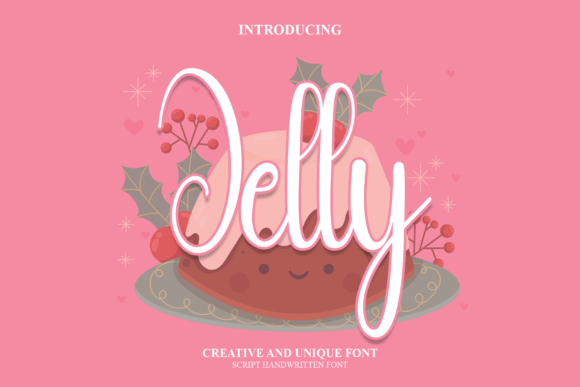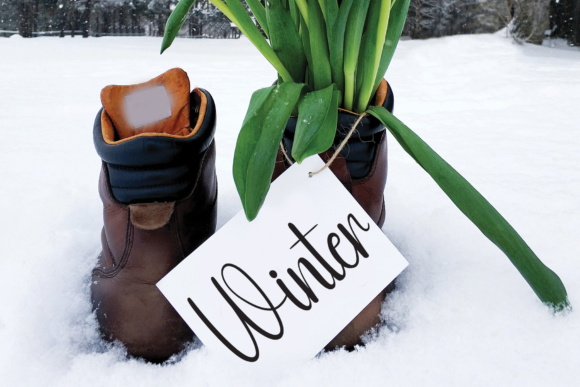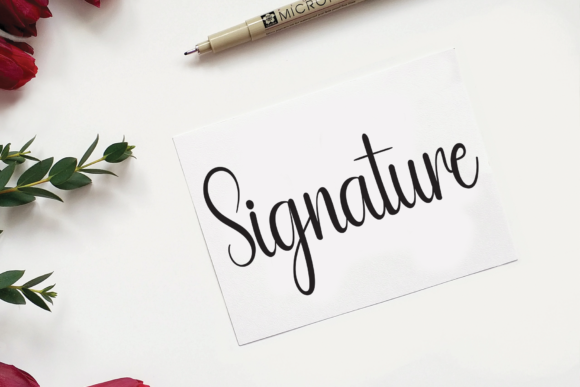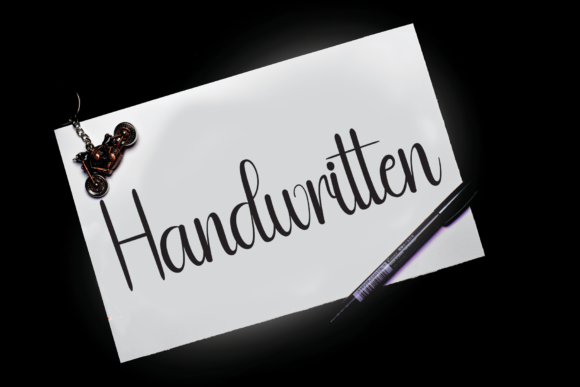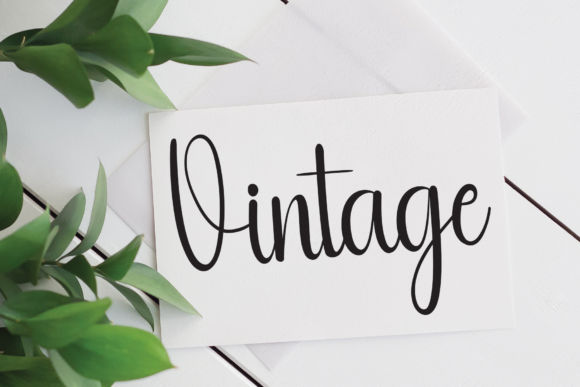
Jelly Font
Introducing a sweet, romantic, and playful script font that brings a delightful touch to your designs, featuring beautiful curves in each letter. This font not only radiates visual appeal but also incorporates PUA coding, ensuring effortless access to a diverse range of glyphs and playful sweeps for easy customization.
The sweet, romantic, and playful characteristics of this script font make it a perfect choice for projects that seek a lighthearted and charming aesthetic. Whether you’re creating whimsical wedding invitations, infusing a sense of joy into social media graphics, or designing playful product packaging, the beautiful curves in each letter add a touch of sweetness and playfulness.
A standout feature of this font is its PUA coding, providing users with a user-friendly experience for seamless exploration of its extensive character set. With easy access to all the glyphs and playful sweeps, designers of any skill level can infuse their projects with unique and personalized touches, adding a bespoke feel to their work.
The beautiful curves present in each letter contribute to the font’s overall charm, making it a versatile choice for a wide range of creative applications. Whether applied to branding, product designs, or invitations, the script’s fluidity imparts a sense of whimsy and joy to the text, enhancing the overall visual experience.
This font’s combination of sweetness, romance, and playfulness makes it particularly well-suited for creating designs that evoke positive emotions. From invitations to branding and beyond, its expressive nature adds character and distinction to your projects. The harmonious balance between these elements ensures that this font stands out in various creative contexts.
In summary, this sweet, romantic, and playful script font, with its beautiful curves and PUA coding, offers a perfect blend of visual appeal and functionality. It invites designers to infuse their projects with creativity and a joyful spirit, making it an excellent choice for those seeking a versatile and expressive typographic solution.